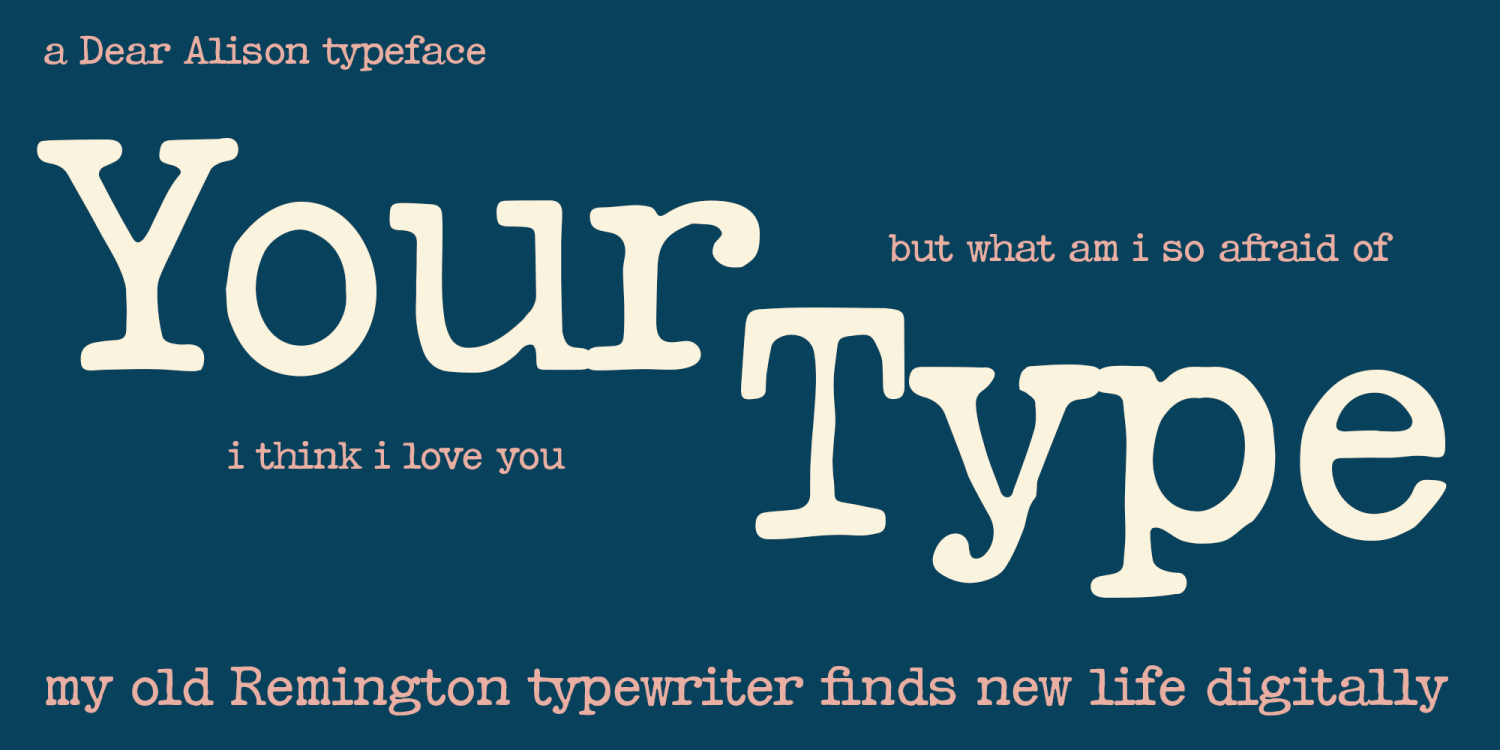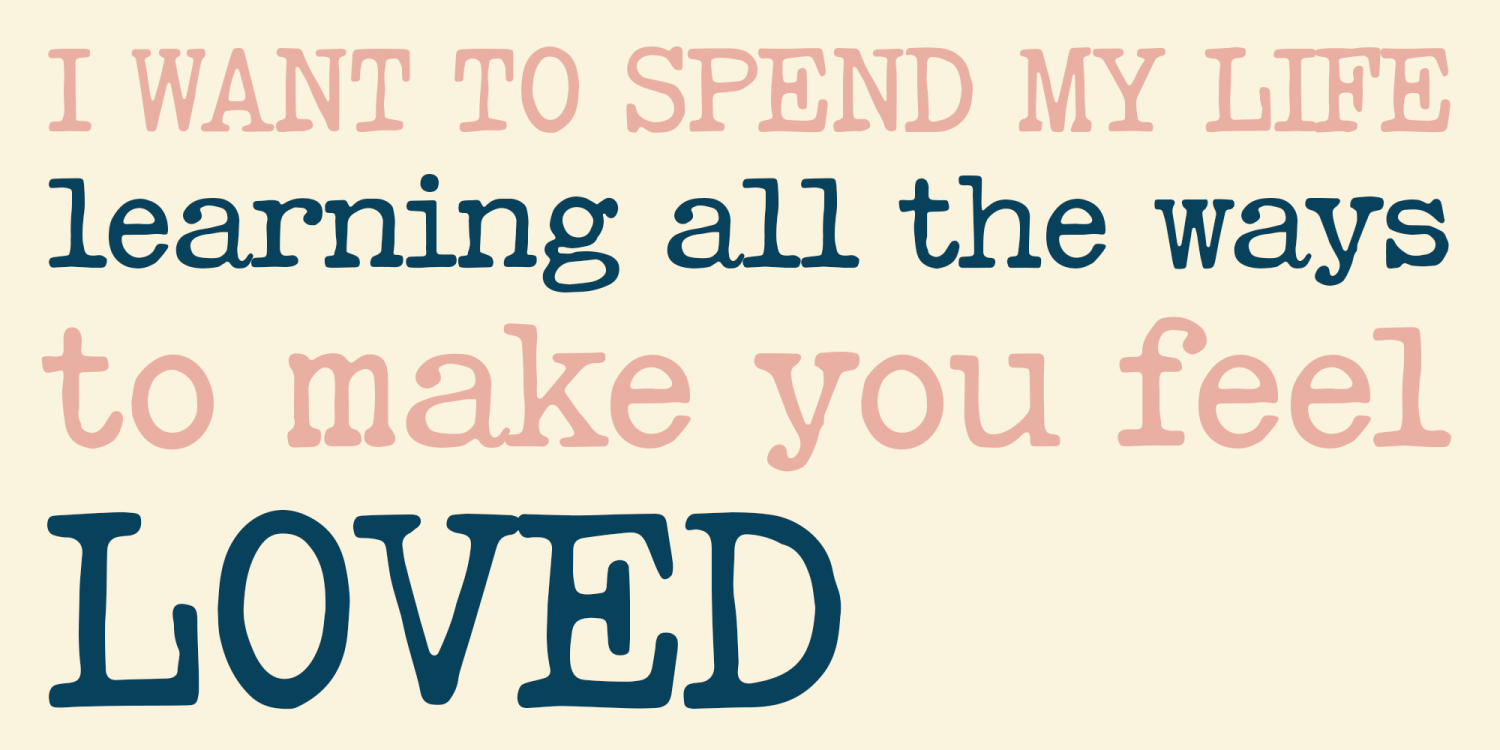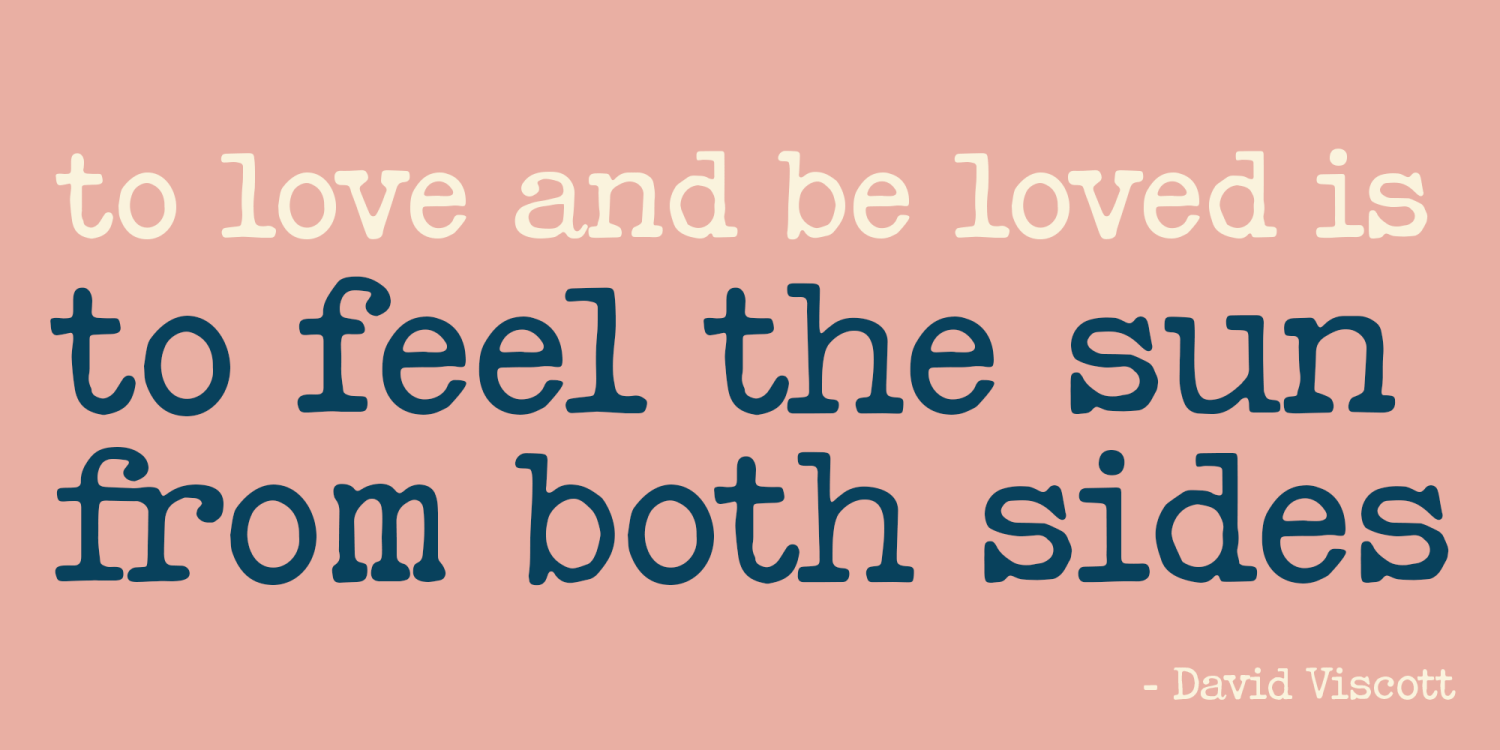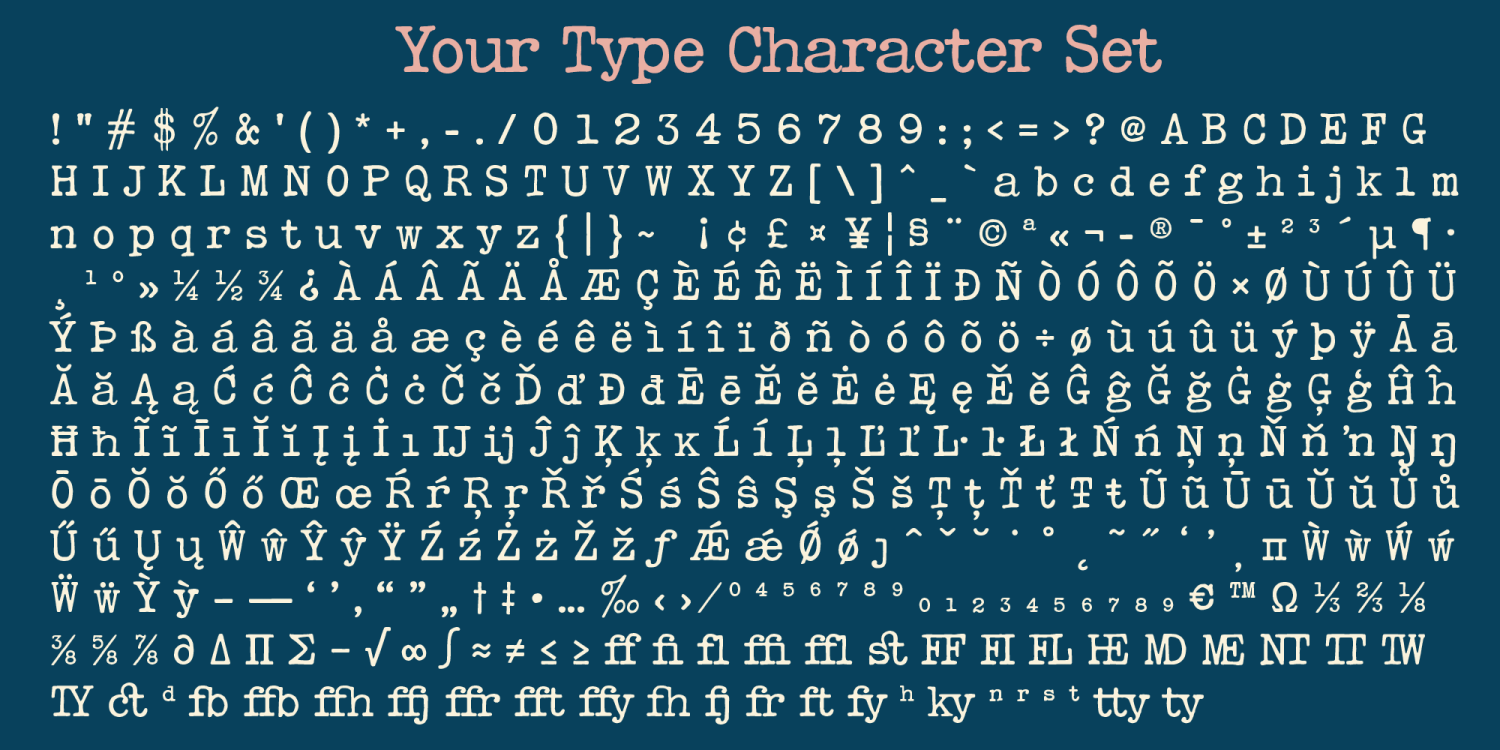
Your Type
Font Family by Dear Alison
The warmth and tactility of a typewriter is like nothing else. My old Remington typewriter unfortunately saw it’s last days long ago, all the keys inked and caked up, the keys no longer working as they should. I thought it was the end, but I rediscovered so many letters and memos I’d written towards the end on it and thought I’d give it a second life digitally.
My old Remy is back, it’s just my type, is it just YOUR TYPE?
I’ve taken some liberties in recreating the letters of this old typewriter, adding in a suite of ligatures, some traditional, some a little more out there (under the discretionary ligatures feature in Opentype). I wanted it to look and feel like an old typewriter, but I wanted to give it a little something more as well.